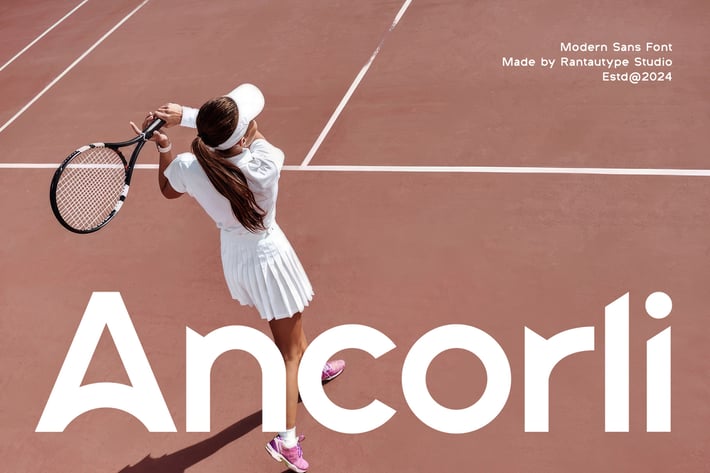
Ancorli Modern Display Sans Font
Ancorli is modern sans font insprire by aesthetic geometric shape. Ancorli give a clean and modern appearance with industrial tones. Ancoli come with alternate to make a different presentation when needed.
Ancorli is a perfectly choice for any creative endeavor, chic, lifestyle design such as logotype, advertisements, watermark on photography, stationery, branding project, display and magazine, invitation, corporate brand, product design, label, business project and many other project with elegant touch.
Alternate and Ligature